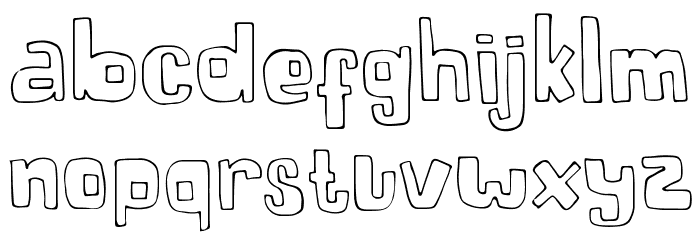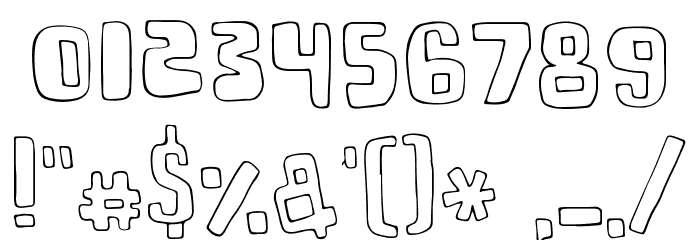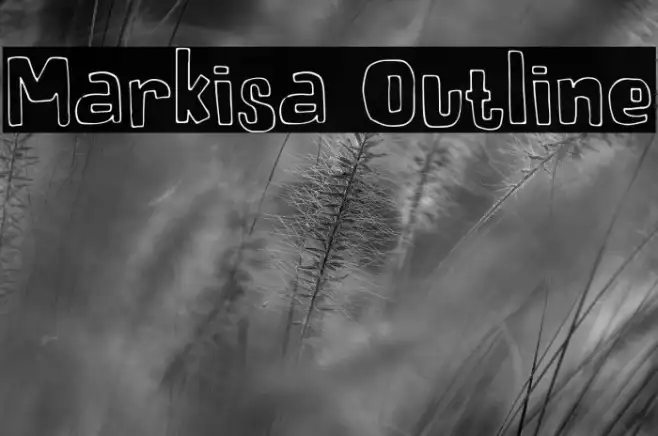
Markisa Outline Font
This font features a playful and bold outline style, characterized by its thick, uniform strokes that create a hollow effect. The letters are rounded and slightly irregular, giving a hand-drawn, casual appearance. The uppercase and lowercase characters maintain a consistent height, contributing to a cohesive look. The numerals and special characters follow the same outlined style, ensuring uniformity across all glyphs. This font's unique design makes it stand out, making it ideal for creative and informal projects. Its distinct outline style adds a layer of depth and interest, making it suitable for eye-catching headlines and designs.
A playful, bold outline font with a hand-drawn, casual appearance.
- Proposed Projects: Ideal for children's books, playful branding, posters, and creative design projects.
- Overall Style: Playful, Casual